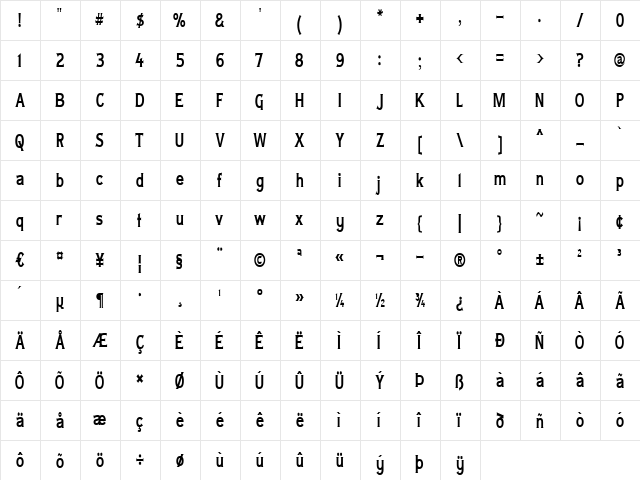
Lady Copra Narrow Regular
| Designer | Graham Meade |
Design Context for Lady Copra Narrow Typeface
Lady Copra Narrow takes a measured approach to typography — its balanced proportions and neutral character make it a reliable workhorse for both digital and print work. The condensed width makes it efficient for tight spaces without sacrificing legibility.